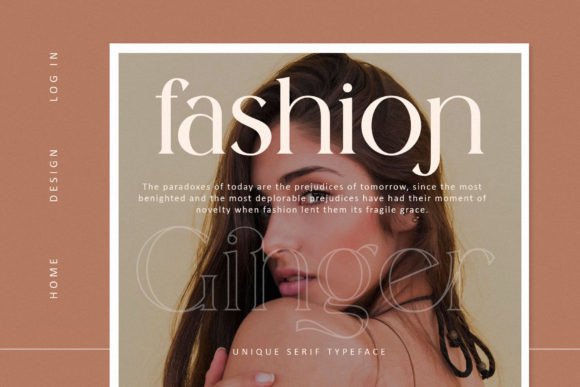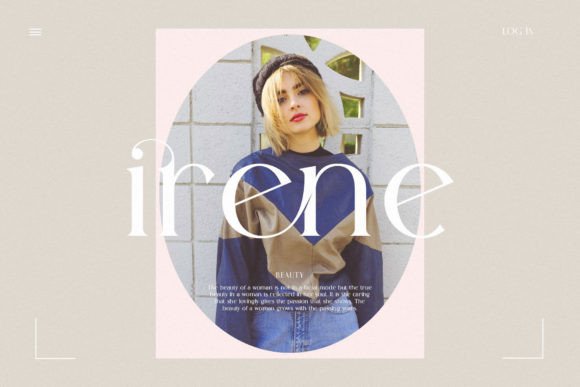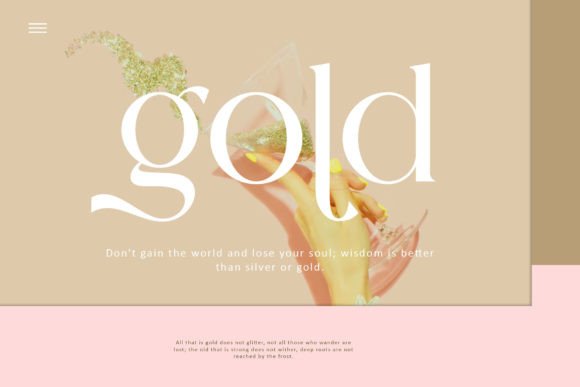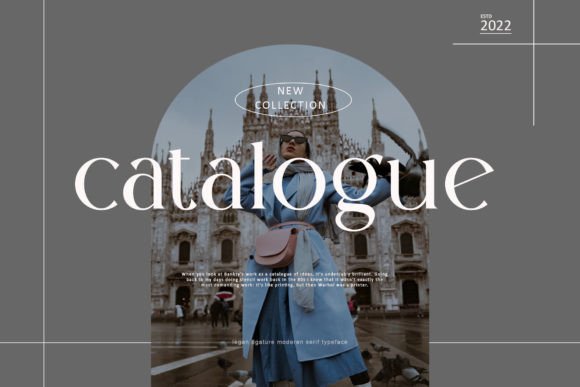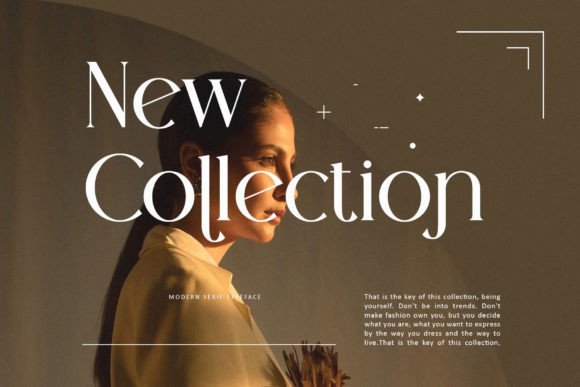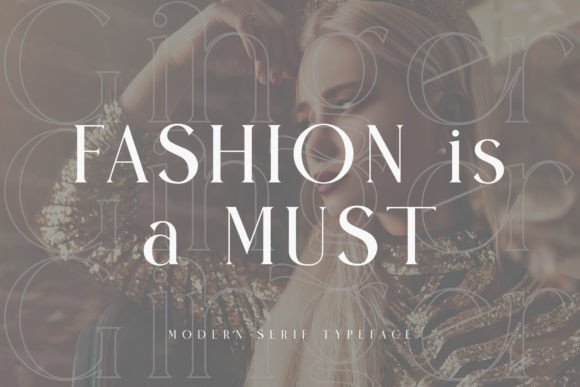
Ginger Font: Elevate Your Designs with a Unique and Classy Serif Typeface
In the world of typography, a good font can make all the difference in creating a visually stunning design. If you’re a designer or crafter looking for a unique and classy serif typeface to add a touch of elegance to your projects, look no further than the Ginger Font. This contemporary and fresh font is perfect for any design you wish to create, and with its PUA encoding, you can easily access all the glyphs and ligatures to take your designs to the next level.
What is Ginger Font?
Ginger Font is a beautifully crafted serif typeface that exudes sophistication and style. Its unique design makes it stand out from other fonts, giving it a distinctive look that is sure to grab attention. Whether you’re working on a branding project, a website design, or a craft project, Ginger Font is the perfect choice to add a touch of class and elegance.
Key Features of Ginger Font
- Unique and Classy Design: Ginger Font boasts a distinctive serif design that sets it apart from other fonts.
- Contemporary and Fresh: Its modern look makes it perfect for designs that require a touch of sophistication.
- Perfect for Designers and Crafters: Whether you’re working on a professional design project or a craft project, Ginger Font is the perfect choice.
Why Choose Ginger Font?
There are many reasons why Ginger Font stands out from other fonts. Here are a few:
- Versatility: Ginger Font can be used for a wide range of design projects, from branding and advertising to website design and crafting.
- Elegance: Its unique serif design gives it an air of sophistication, making it perfect for designs that require a touch of elegance.
Here are a few tips for designers and crafters looking to get the most out of Ginger Font:
- Pair it with Other Fonts: Experiment with pairing Ginger Font with other fonts to create a unique look.
- Use it for Headings and Titles: Ginger Font is perfect for headings and titles, adding a touch of elegance to your designs.
- Experiment with Colors and Textures: Try out different colors and textures to see how they interact with Ginger Font.
In conclusion, Ginger Font is a unique and classy serif typeface that is perfect for designers and crafters looking to add a touch of elegance to their projects. With its PUA encoding and easy-to-use design, it’s the perfect choice for any design project. So why wait? Download Ginger Font today and take your designs to the next level!